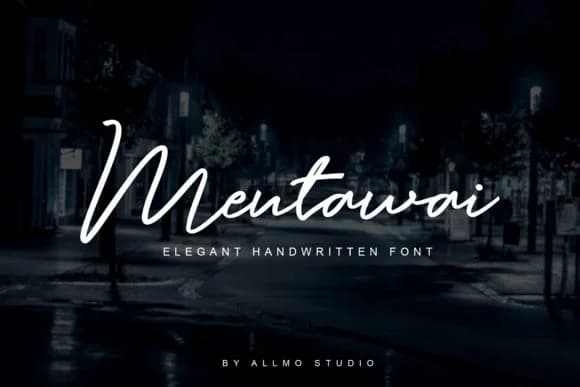
Mentawai by AllmoStudio is a flowing signature script that balances elegance with contemporary sophistication, delivering a refined, handcrafted quality to any project. The font's distinctive character lies in its ability to mix and match uppercase and lowercase letterforms, creating dynamic visual combinations that feel custom-designed for each application. This built-in flexibility makes it especially valuable for designers developing personalized brand identities and unique visual systems.
The versatility of Mentawai shines across numerous creative applications. Whether you're creating luxury wedding invitation suites, developing distinctive brand logos for creative entrepreneurs, designing upscale product labels for artisan skincare and cosmetics, or crafting personalized monogram stamps and embroidered elements, this script brings a refined, authentic aesthetic to every project. The flowing letterforms translate beautifully across digital compositions, textiles, engravings, and other production mediums, making it a genuinely multi-purpose tool for diverse design work.
What distinguishes Mentawai is its professional execution without sacrificing character. The letterforms maintain excellent clarity and personality even when scaled down, making it suitable for both prominent headline applications and subtle signature details within larger compositions. The contemporary approach to traditional script styling appeals specifically to brands seeking hand-lettered authenticity while maintaining polished sophistication.
Mentawai Font is a script font that shines as a display or heading face. Pair it with a clean sans-serif or serif font for body text β the contrast creates a clear hierarchy while the two styles stay balanced and easy to read.